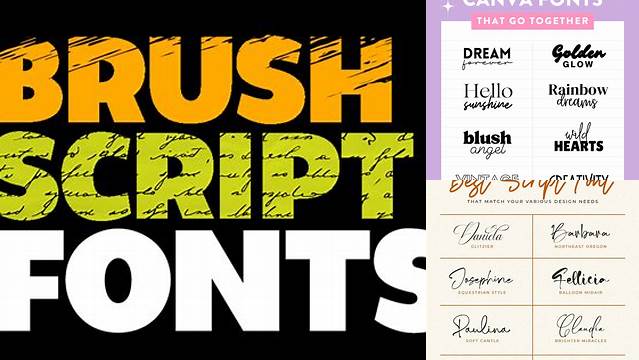
Best Free Script Fonts In 2025: Top Picks For Designers
Hey guys! Are you on the hunt for the best free script fonts to spice up your projects in 2025? Look no further! This comprehensive guide will walk you through a curated list of stunning script fonts that will add a touch of elegance, personality, and flair to your designs. Whether you're a seasoned designer or just starting, finding the perfect font can make all the difference. So, let's dive into the world of free script fonts and discover the gems that will elevate your work to the next level.
Why Use Script Fonts?
Script fonts, my friends, are like the handwriting of the design world. They bring a personal and human touch that other font styles often lack. Think about it – a well-chosen script font can evoke emotions, create a mood, and instantly add character to your projects. From elegant wedding invitations to eye-catching logos, script fonts are incredibly versatile.
- Adding Personality: Script fonts are fantastic for adding a personal touch. They mimic handwriting, which gives your designs a human feel. Imagine using a beautiful, flowing script for a handwritten note effect on a website – it instantly makes the content feel more personal and engaging.
- Creating Emphasis: These fonts are excellent for highlighting key elements. Use them for headings, quotes, or call-to-action buttons to draw the viewer's eye. A bold script font can make a statement, while a lighter one can add a subtle elegance. The key is to use them sparingly to maintain readability.
- Versatility: Don't think script fonts are only for formal occasions! They work well in various contexts, from vintage-inspired designs to modern, minimalist layouts. You can find scripts that are playful and casual, as well as those that are sophisticated and formal. This versatility makes them a valuable asset in any designer's toolkit.
- Evoking Emotions: The style of a script font can evoke different emotions. A swirly, romantic script might be perfect for a wedding invitation, while a bold, brush-style script could be ideal for a dynamic logo. Understanding the emotional impact of different scripts can help you choose the right font for your project.
So, why should you use script fonts? Because they can transform your designs from ordinary to extraordinary! They add personality, create emphasis, offer versatility, and evoke emotions – all crucial elements for effective design. Now that we've covered the why, let's get into the how: discovering the best free script fonts for 2025.
Top Free Script Fonts for 2025
1. Brusher
Brusher is a bold and dynamic brush script that's perfect for making a statement. It has a raw, hand-painted feel that’s ideal for logos, posters, and anything that needs a touch of edgy personality. Think of it as the rebellious cousin of more traditional script fonts. The thick strokes and slightly rough edges give it a handmade vibe that’s super trendy right now. It’s excellent for projects where you want to convey energy and excitement.
- Key Features: Bold brush strokes, handwritten feel, dynamic appearance.
- Best For: Logos, posters, social media graphics, and branding materials that need a bold, energetic look.
- Why it's great: Brusher stands out because of its distinct hand-painted aesthetic. It’s not your typical polished script font, which makes it perfect for projects that aim for authenticity and a raw, unfiltered vibe. Plus, its boldness ensures your message grabs attention.
2. Sophia
If you're looking for something more elegant and feminine, Sophia is your go-to font. This script has delicate curves and a flowing rhythm that makes it perfect for wedding invitations, feminine branding, and anything that needs a touch of sophistication. It's like the graceful ballerina of script fonts, gliding across the page with effortless beauty. Sophia has a way of making everything look refined and classy.
- Key Features: Delicate curves, flowing rhythm, feminine and elegant style.
- Best For: Wedding invitations, feminine branding, stationery, and designs that require a touch of elegance.
- Why it's great: Sophia excels in its ability to convey elegance and sophistication. Its delicate strokes and graceful loops make it a perfect choice for projects where you want to create a refined and polished look. It's versatile enough to be used in both print and digital designs, making it a staple for any designer.
3. Lemon Jelly
Lemon Jelly is a playful and whimsical script that's perfect for adding a touch of fun to your designs. Its bouncy baseline and rounded letterforms give it a cheerful vibe, making it ideal for children's books, greeting cards, and anything that needs a lighthearted touch. Imagine a font that's always smiling – that's Lemon Jelly. It’s bright, bubbly, and full of personality.
- Key Features: Bouncy baseline, rounded letterforms, playful and whimsical style.
- Best For: Children's books, greeting cards, social media graphics, and designs that need a fun and cheerful look.
- Why it's great: Lemon Jelly’s charm lies in its ability to inject a sense of fun and playfulness into any project. Its rounded edges and lively baseline create a joyful aesthetic that’s hard to resist. If you want your design to bring a smile to people's faces, Lemon Jelly is your font.
4. Halo Script
Halo Script is a modern and stylish script font that balances elegance with a contemporary edge. Its clean lines and subtle flourishes make it versatile enough for a wide range of projects, from logos to website headers. Think of it as the cool, sophisticated script that knows how to dress up or down. Halo Script has a sleek, polished look that works wonders in both digital and print designs.
- Key Features: Clean lines, subtle flourishes, modern and stylish appearance.
- Best For: Logos, website headers, branding materials, and designs that require a contemporary and elegant touch.
- Why it's great: Halo Script stands out for its versatility. It's not too formal, not too casual – it strikes the perfect balance. This makes it an excellent choice for projects where you need a font that’s both stylish and professional. Its clean lines ensure readability, while its subtle flourishes add just the right amount of flair.
5. Debby
If you're after a handwritten, free-flowing script, Debby is a fantastic choice. It has a natural, imperfect feel that's perfect for adding a personal touch to your projects. This font looks like it was scribbled with a marker, giving it an authentic, hand-crafted vibe. Debby is the kind of script that makes your designs feel warm and inviting.
- Key Features: Handwritten style, free-flowing, natural and imperfect feel.
- Best For: Blog headers, quotes, social media graphics, and designs that need a personal and authentic touch.
- Why it's great: Debby excels in its ability to convey authenticity and personality. Its natural imperfections give it a unique charm that polished fonts often lack. If you want your design to feel genuine and approachable, Debby is an excellent choice. It’s like adding a personal signature to your work.
How to Choose the Right Script Font
Choosing the right script font can feel like a daunting task with so many options available. But don't worry, guys, I'm here to help! Here are a few tips to guide you in selecting the perfect script font for your project:
- Consider the Project's Purpose: What's the goal of your design? Are you creating a wedding invitation, a logo, or a website header? The purpose of your project will heavily influence the type of script font you choose. For example, a formal invitation might call for an elegant script like Sophia, while a playful logo could benefit from a whimsical font like Lemon Jelly.
- Think About the Target Audience: Who are you trying to reach with your design? Consider their age, interests, and preferences. A younger audience might appreciate a bold and modern script, while an older audience might prefer something more traditional and refined. Knowing your audience will help you choose a font that resonates with them.
- Ensure Readability: While script fonts are beautiful, they can sometimes be challenging to read, especially in large blocks of text. Make sure the font you choose is legible, even at smaller sizes. Avoid overly ornate or decorative scripts for body text. Instead, use them sparingly for headings or accents.
- Pair with a Complementary Font: Script fonts often work best when paired with a simpler, more legible font for body text. Consider using a sans-serif or serif font to create a visual contrast. For example, you might pair a script font with Arial or Helvetica for a clean and modern look.
- Test It Out: Before committing to a font, test it out in your design software. See how it looks in different sizes, colors, and contexts. Experiment with different pairings and layouts to find the perfect combination. Sometimes, what looks great in a font preview doesn't translate well into a real design.
Tips for Using Script Fonts Effectively
Okay, you've chosen your script font – awesome! But the job's not quite done yet. Here are some tips on how to use script fonts effectively to make your designs truly shine:
- Use Sparingly: Script fonts are best used in moderation. Overusing them can make your design look cluttered and difficult to read. Use them for headings, logos, or short phrases, and pair them with a simpler font for body text. Think of script fonts as the seasoning in your design recipe – a little goes a long way.
- Mind the Kerning and Leading: Kerning (the space between letters) and leading (the space between lines) are crucial for readability. Adjust these settings as needed to ensure your text looks balanced and easy to read. Some script fonts have intricate letterforms that require careful kerning to prevent overlapping or awkward gaps.
- Consider the Context: Think about the overall style and tone of your design. Does the script font you've chosen fit the context? A formal event invitation calls for a different script than a playful social media graphic. Make sure your font choice aligns with the message you're trying to convey.
- Experiment with Colors: The color of your script font can significantly impact its appearance. Try using contrasting colors to make your script stand out, or opt for more subtle tones for a softer look. A bold script font in a vibrant color can grab attention, while a delicate script in a muted tone can add a touch of elegance.
- Create Hierarchy: Use different sizes and weights of your script font to create a visual hierarchy. Larger, bolder fonts will draw the viewer's eye, while smaller, lighter fonts can be used for secondary information. This helps guide the reader through your design and highlights the most important elements.
So, there you have it, guys! A comprehensive guide to the best free script fonts for 2025. We've covered why script fonts are so awesome, explored some top free options, and discussed how to choose and use them effectively. With these tips and resources, you're well-equipped to elevate your designs and create stunning visuals that captivate your audience.